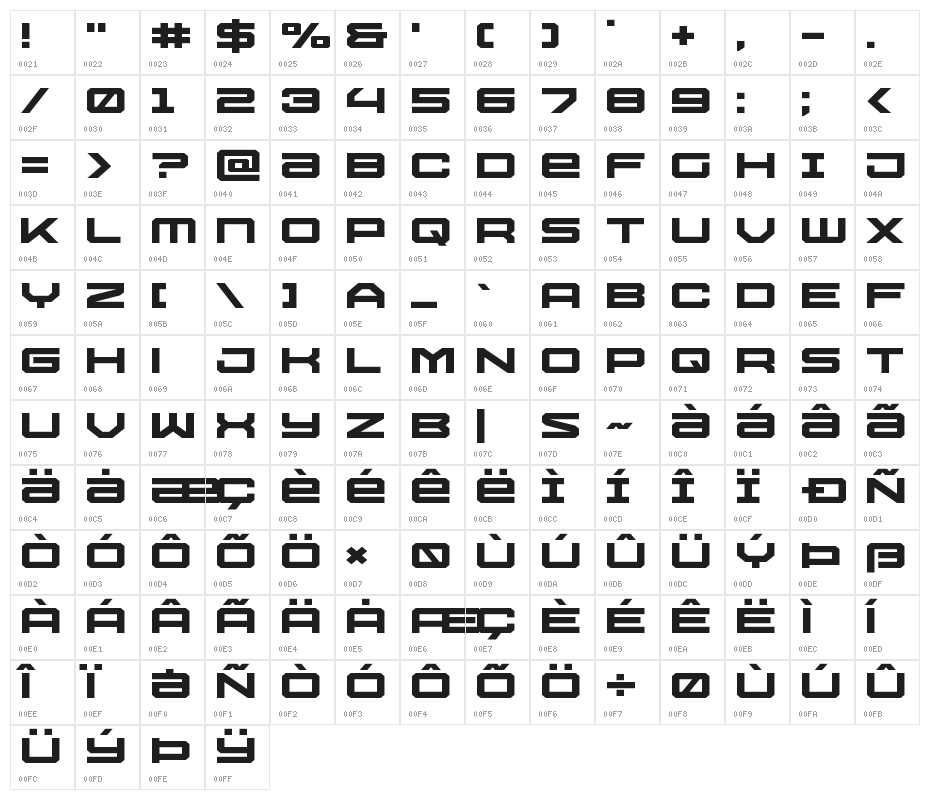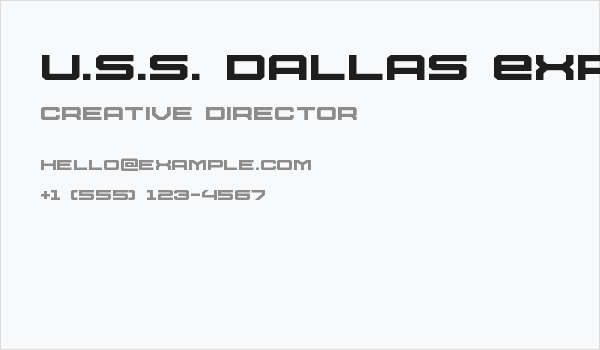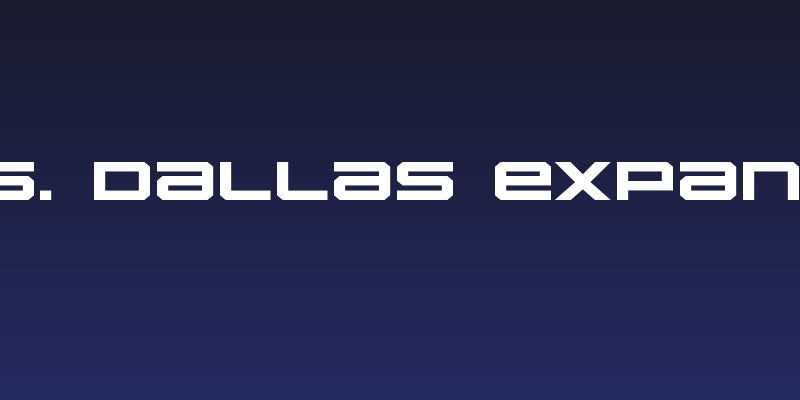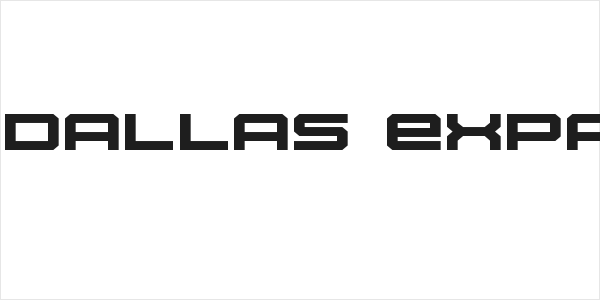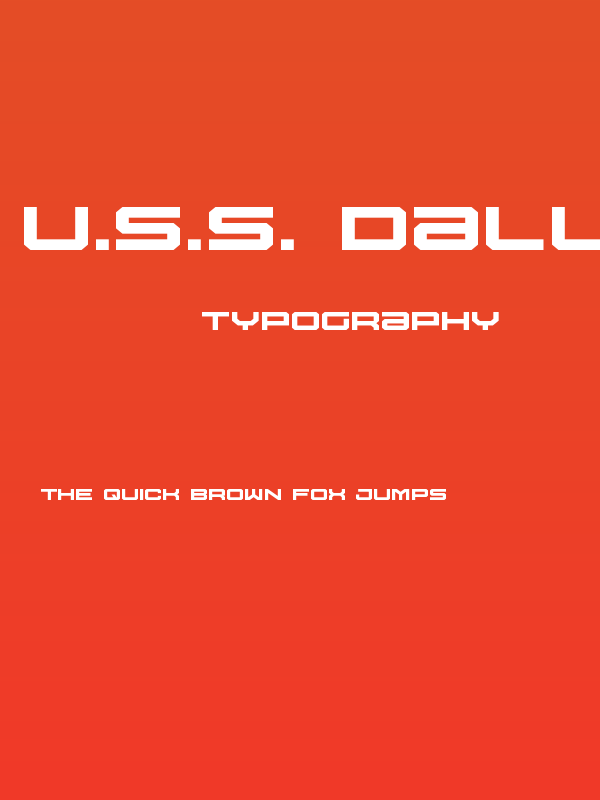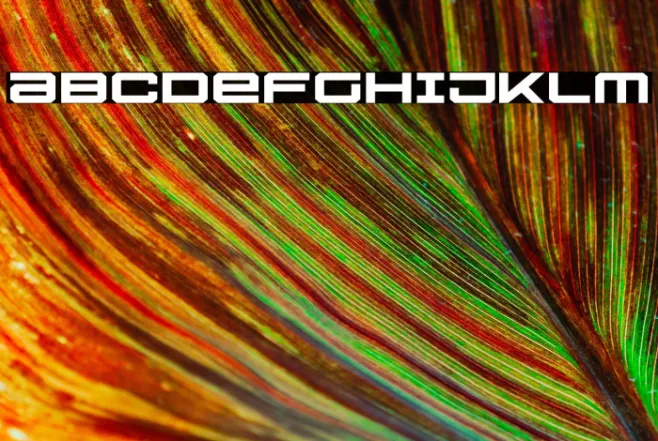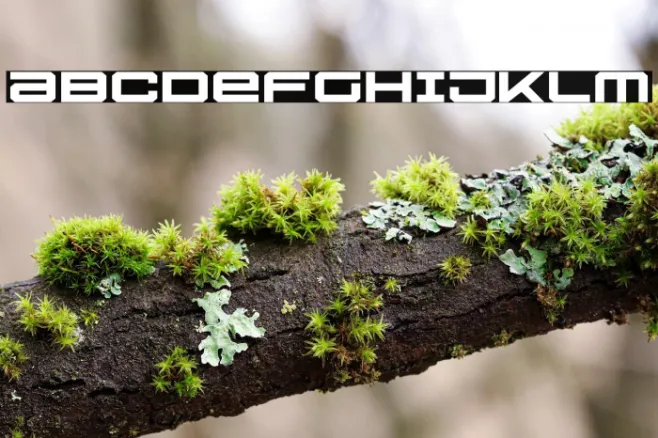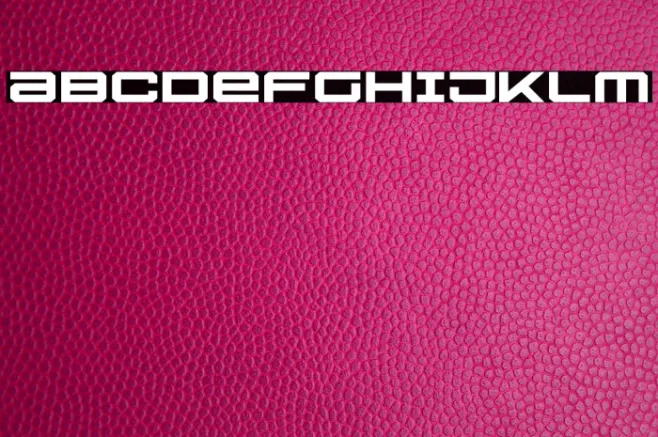
U.S.S. Dallas Expanded Font
U.S.S. Dallas Expanded Description
This font features a bold, geometric design with a futuristic aesthetic. The characters are constructed with sharp angles and straight lines, giving it a mechanical and industrial feel. The uppercase and lowercase letters maintain a consistent style, with a uniform height and width that enhances readability. The numbers and special characters follow the same design principles, ensuring a cohesive look across all glyphs. The font's expanded width and strong presence make it ideal for impactful headlines and titles.
| Proposed Projects | Ideal for sci-fi themed projects, technology branding, video game titles, and modern posters. |